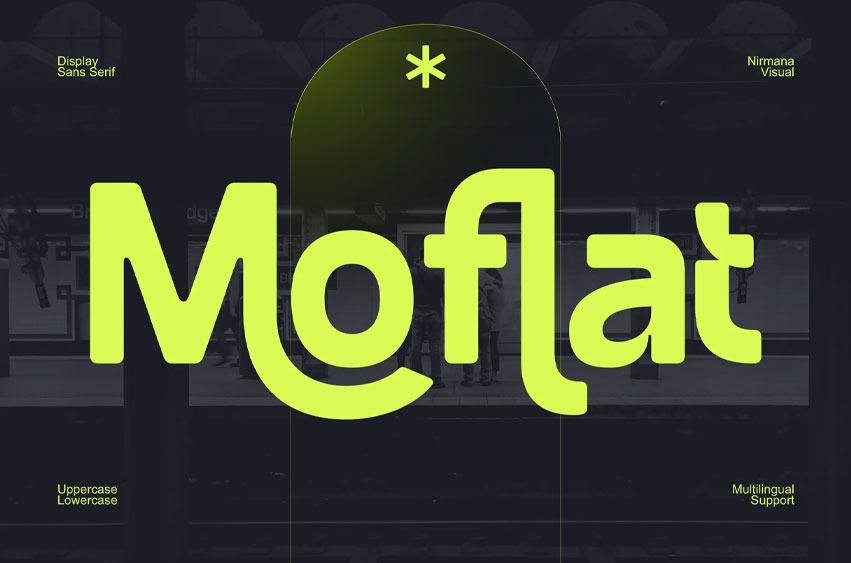
Moflat Font offers beautiful typographic harmony for a diversity of design projects, including logos & branding, social media posts, advertisements & product designs.
Perfectly crafted to meet all your design needs.